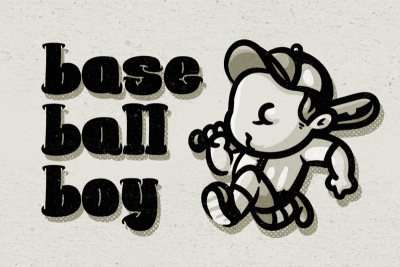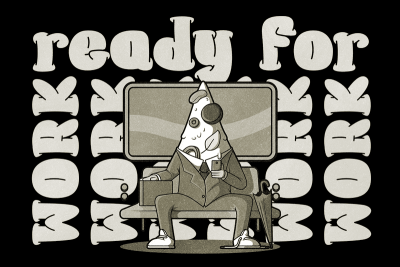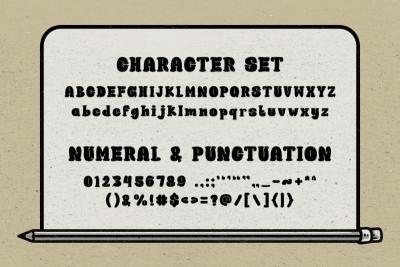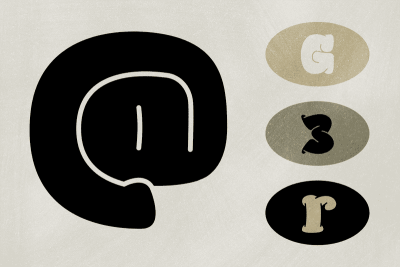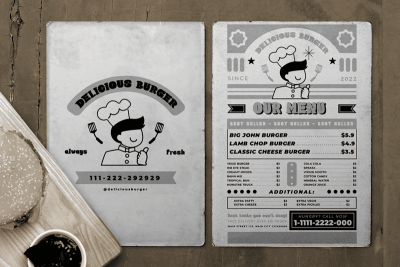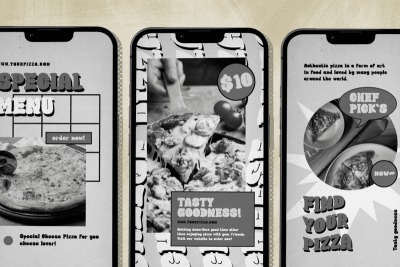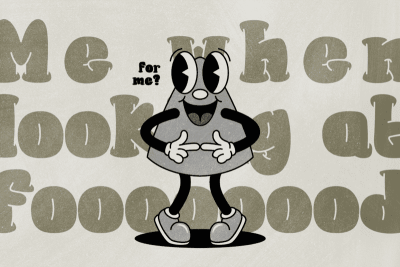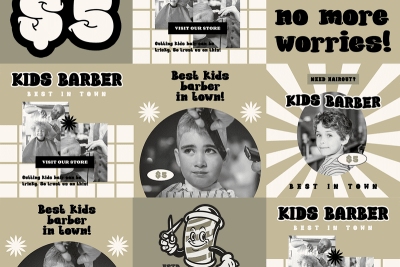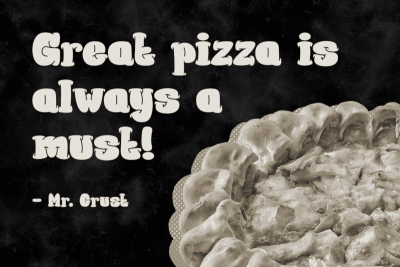
Bubble Font Goof Ball is a bold and quirky typeface designed to inject energy and humor into your projects. With its soft, inflated letterforms and lively style, this font is ideal for branding, children’s materials, and any creative design that demands attention. Whether you’re designing for a toy company or crafting a party invitation, Goof Ball’s playful personality makes every project more engaging.
The font’s bubbly structure gives it a fun and approachable feel, making it a favorite among designers creating vibrant visuals. Its cartoonish charm adds a layer of humor, perfect for projects aimed at younger audiences or brands that embrace a lighthearted tone. Goof Ball ensures your designs are not just seen but remembered.
Why Designers Love Bubble Font Goof Ball
Goof Ball’s unique appeal lies in its versatility. This font adapts seamlessly to both print and digital designs, enhancing everything from posters to social media graphics. Its bold letterforms ensure readability, even at smaller sizes, making it suitable for logos, headers, and other key elements of your design.
Many designers are drawn to Goof Ball because of its balance between playfulness and professionalism. The inflated shapes and thick strokes give a retro vibe while remaining modern and fresh. Furthermore, the font performs well across diverse themes, including entertainment, education, and event branding.
By choosing Goof Ball, you can easily create designs that stand out and communicate a fun, energetic message. Its consistent readability and engaging style make it a versatile asset in any designer’s toolkit.
The adaptability of Bubble Font Goof Ball opens the door to endless creative possibilities. Use it for crafting eye-catching posters, playful packaging, or memorable logos. Its bold design also works beautifully in animated titles, video content, and merchandise like T-shirts and stickers.
This typeface excels in projects that require humor or joy. For example, brands targeting children or families will find Goof Ball’s friendly and inviting appearance perfect for connecting with their audience. It’s also a great choice for event marketing materials, such as flyers and banners for carnivals, birthday parties, or festivals.
Adding Goof Ball to your designs ensures they exude charm and originality. The font’s cheerful and bold personality not only amplifies your message but also leaves a lasting impression.